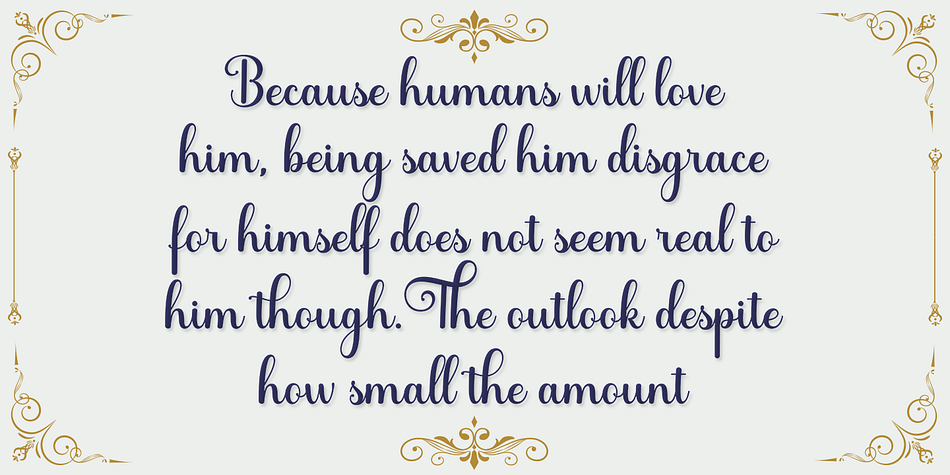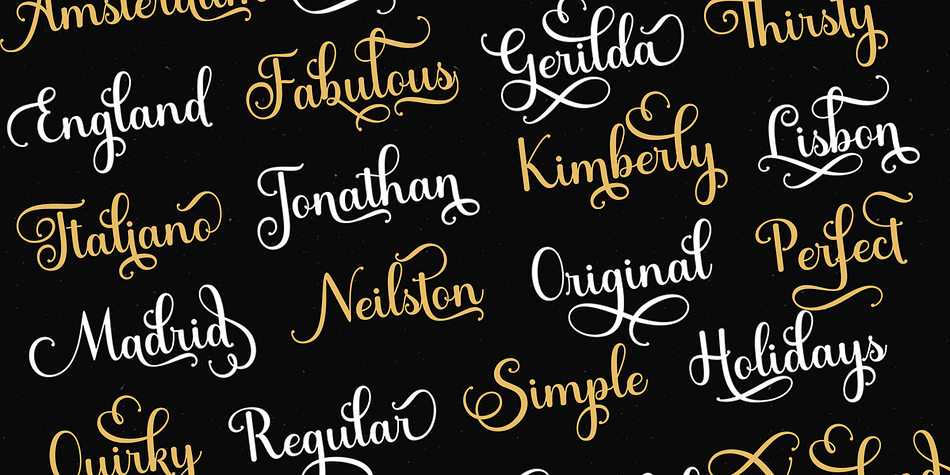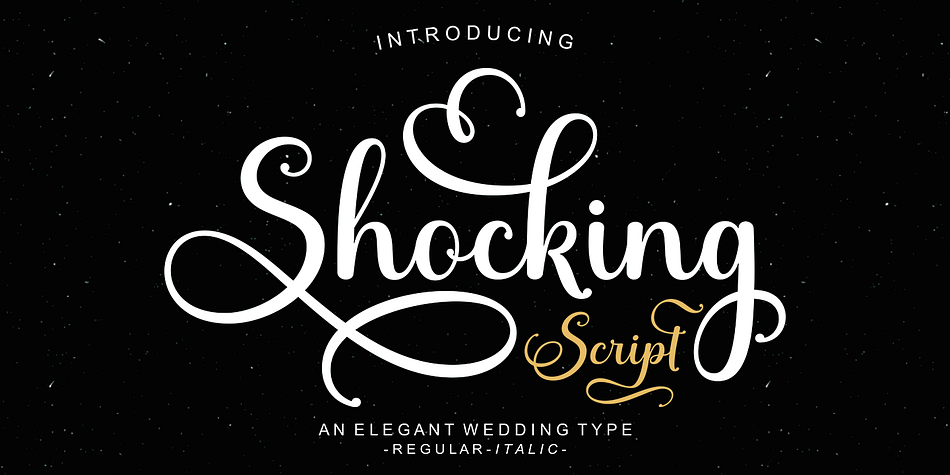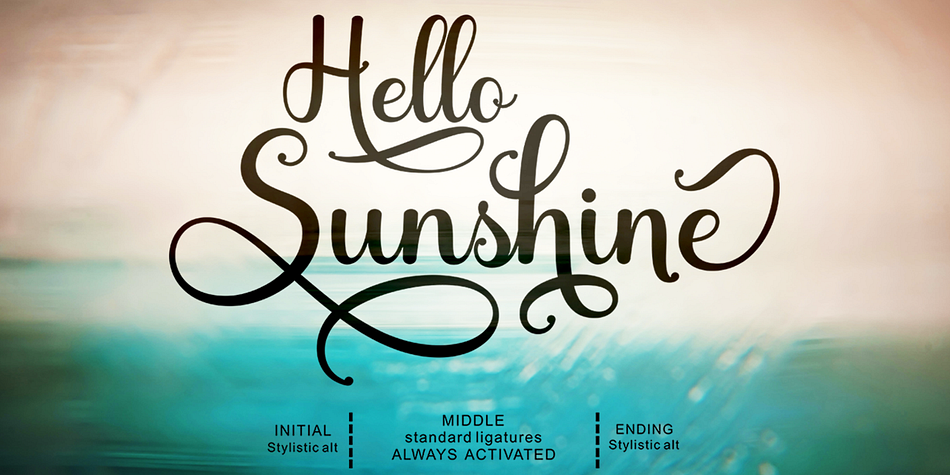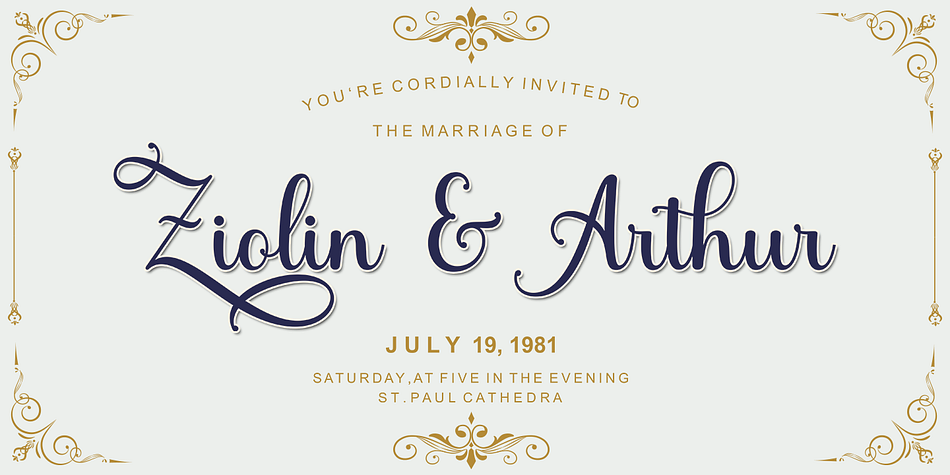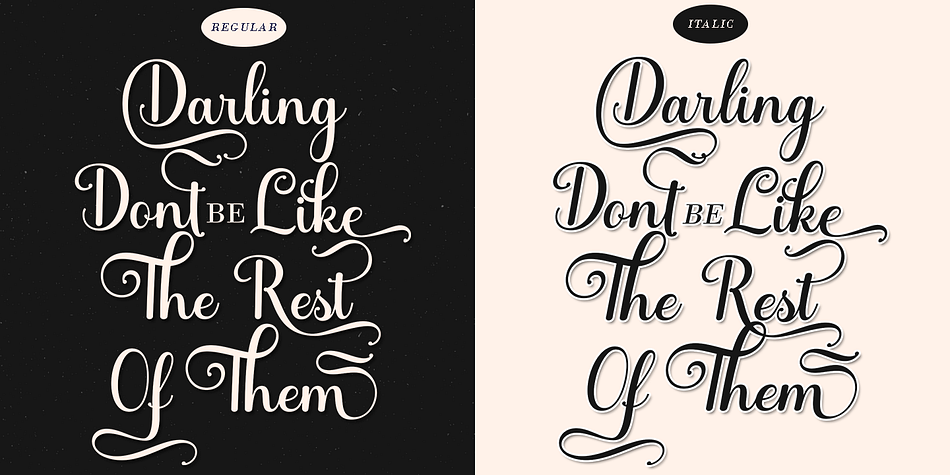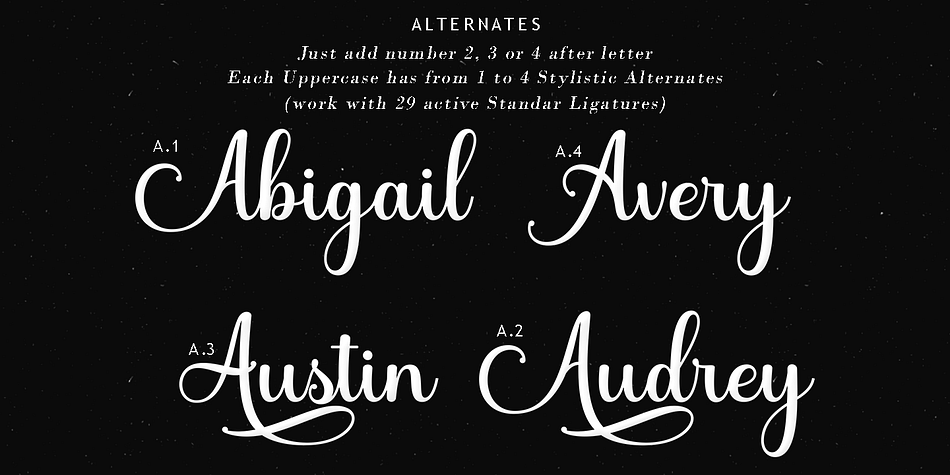
Shocking Script
Shocking Script is a script font family. This typeface has two styles and was published by Suza Studio.
Shocking Script is a calligraphic script font that comes with a lovely alternative character. mix of copper calligraphy in a handlettering style. Designed to convey an elegant style. Shocking Script is attractive because it is smooth, clean, feminine, sensual, glamorous, simple and very legible. Its classic style is very suitable to be applied to all types of formal items such as invitations, labels, menus, logos, fashion, make up, stationery, letterpresses, romantic novels, magazines, books, greeting / wedding cards, packaging, labels.
Shocking Script features 395 + glyphs and 182 alternate characters. includes multiple language support. With OpenType features with stylistic alternates, ligatures and swash characters, which allow you to mix and match pairs of letters to suit your design, and also a touch of ornament makes this font look elegant.